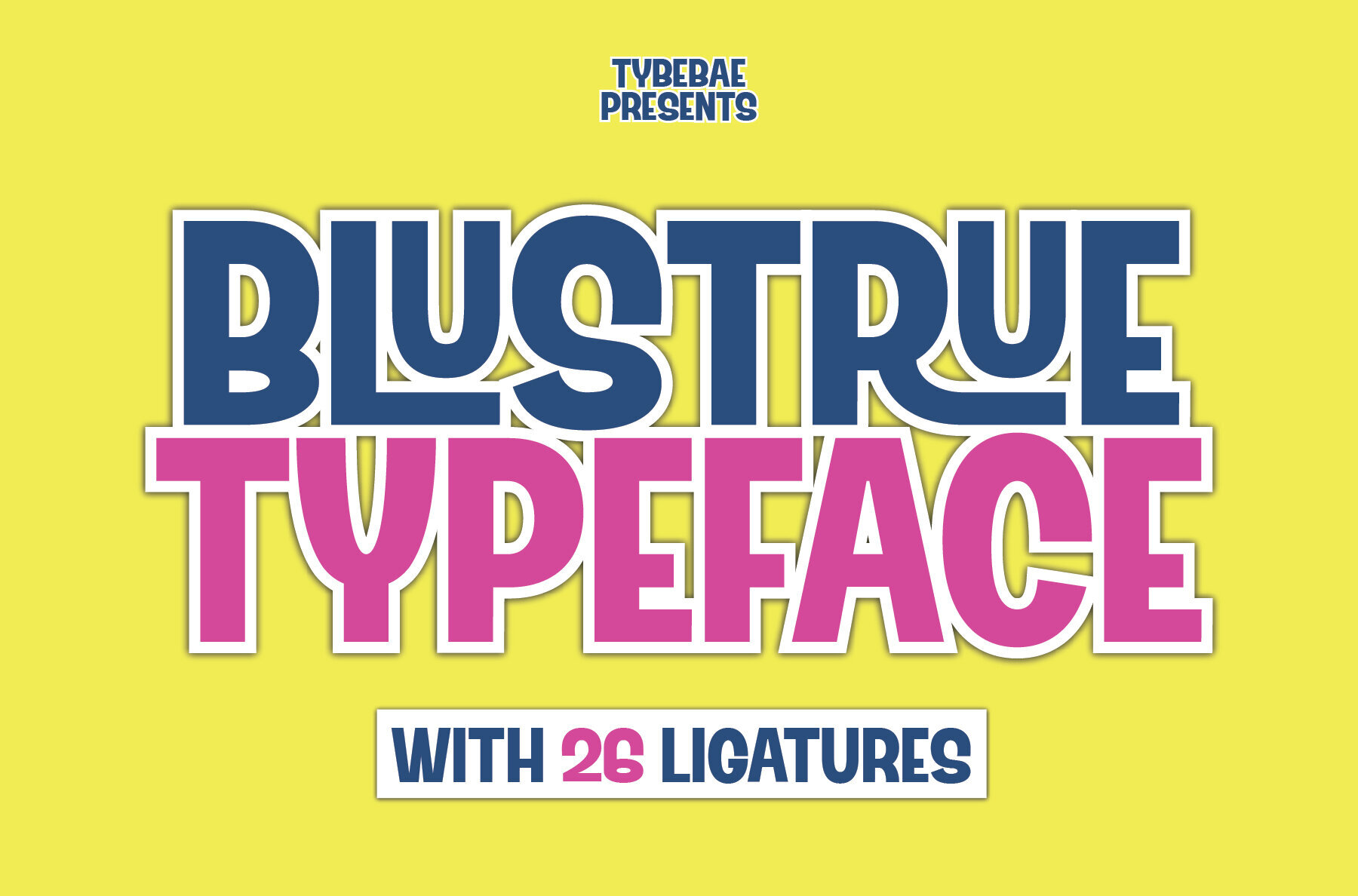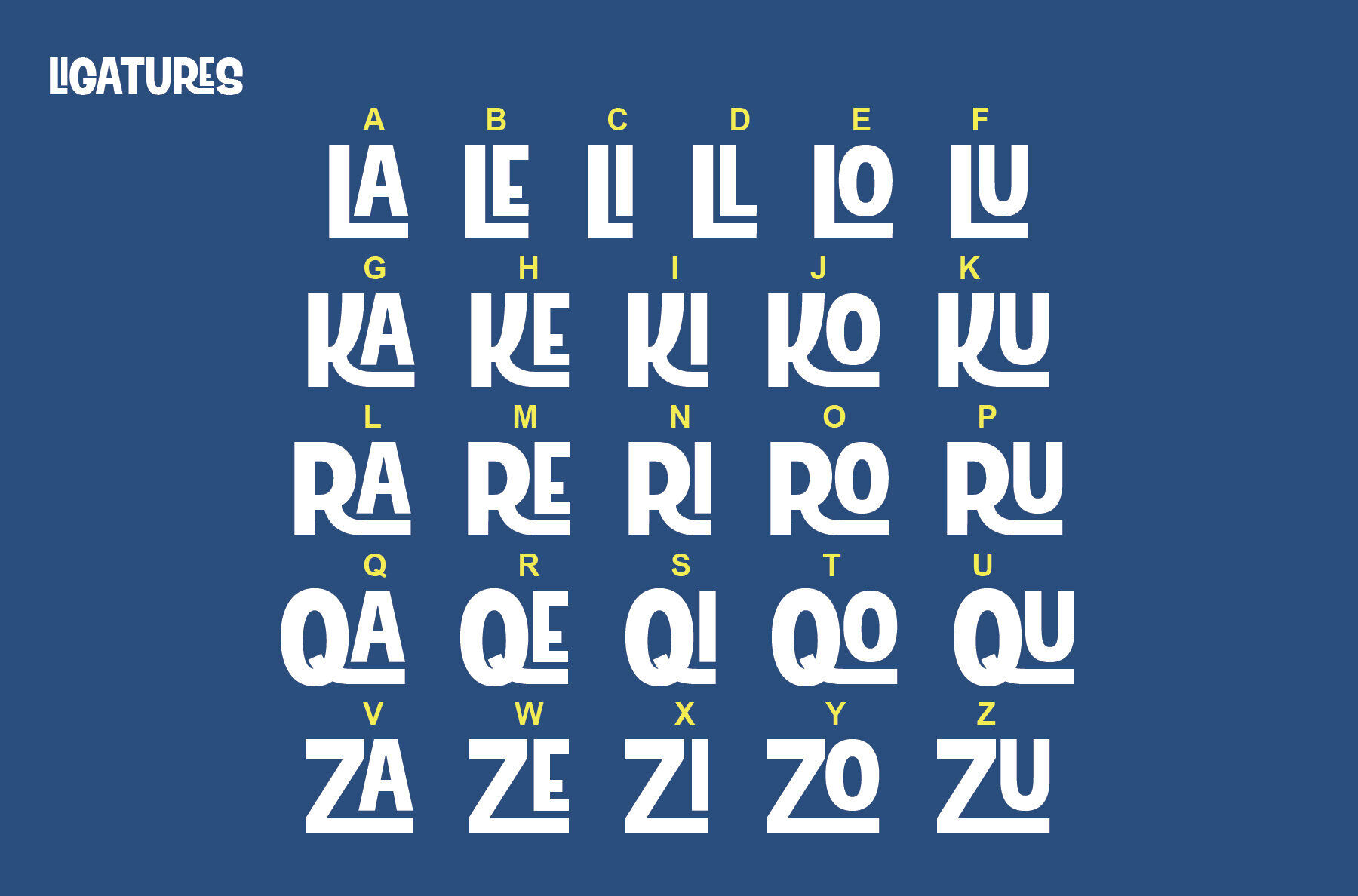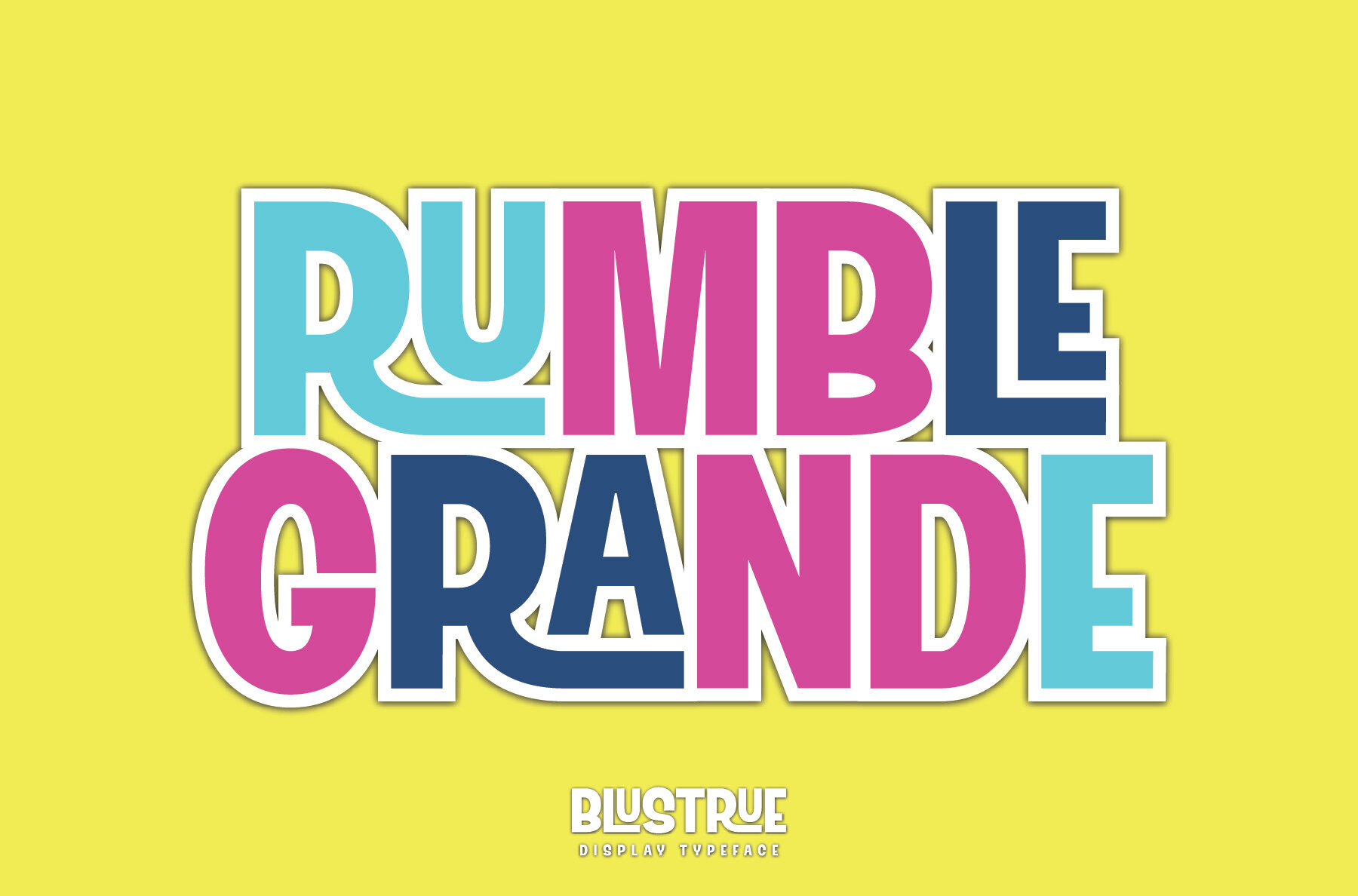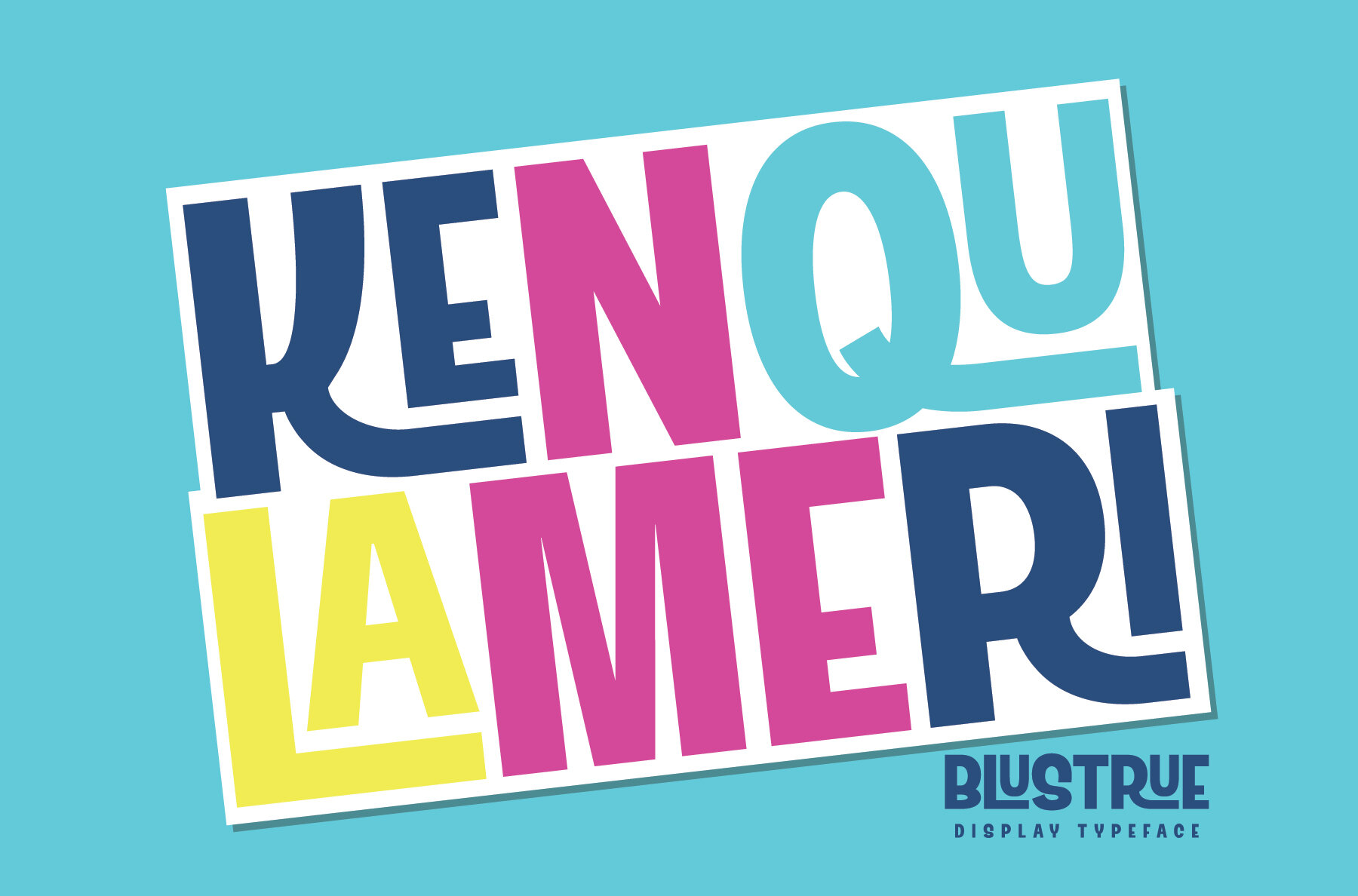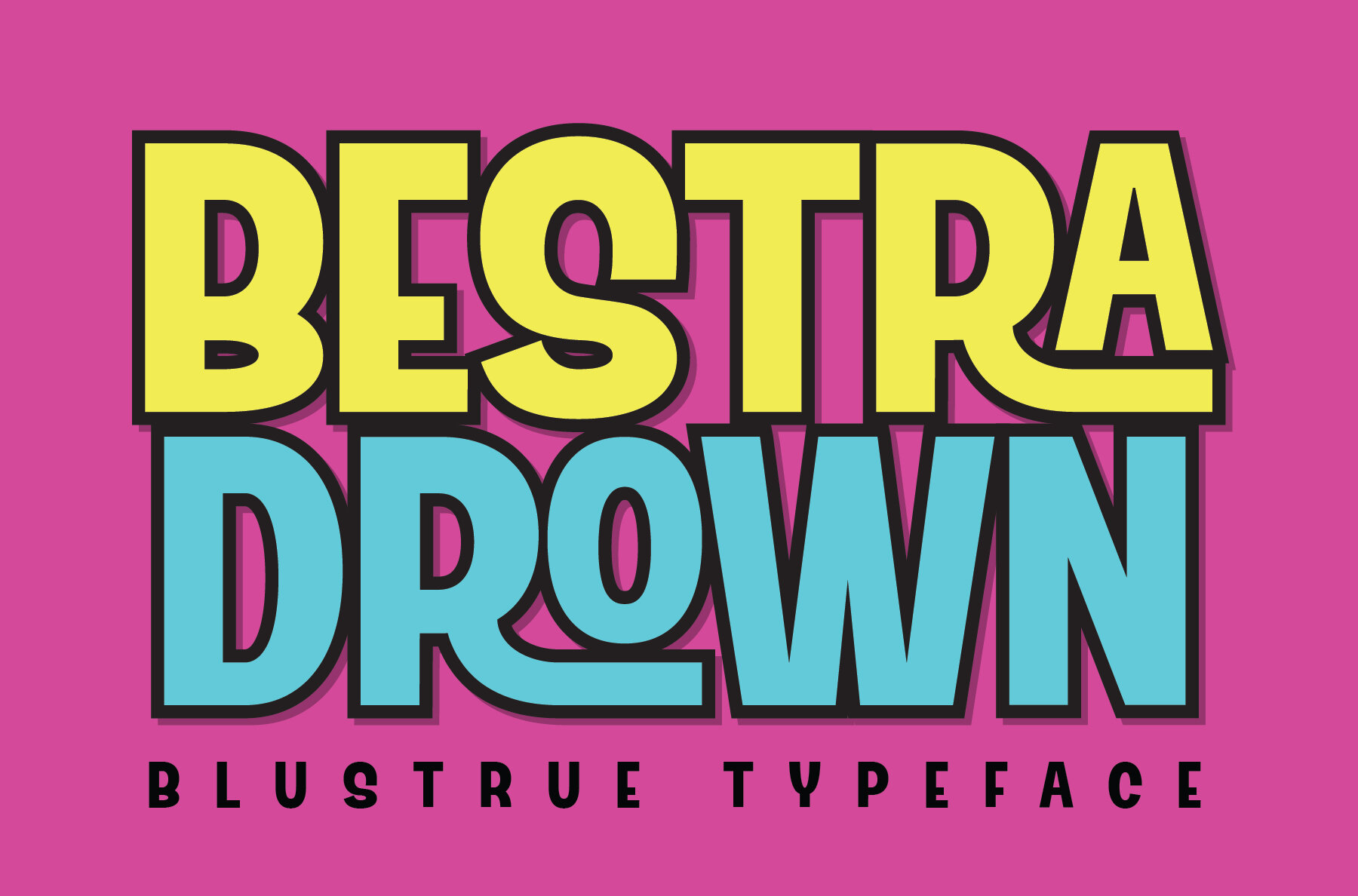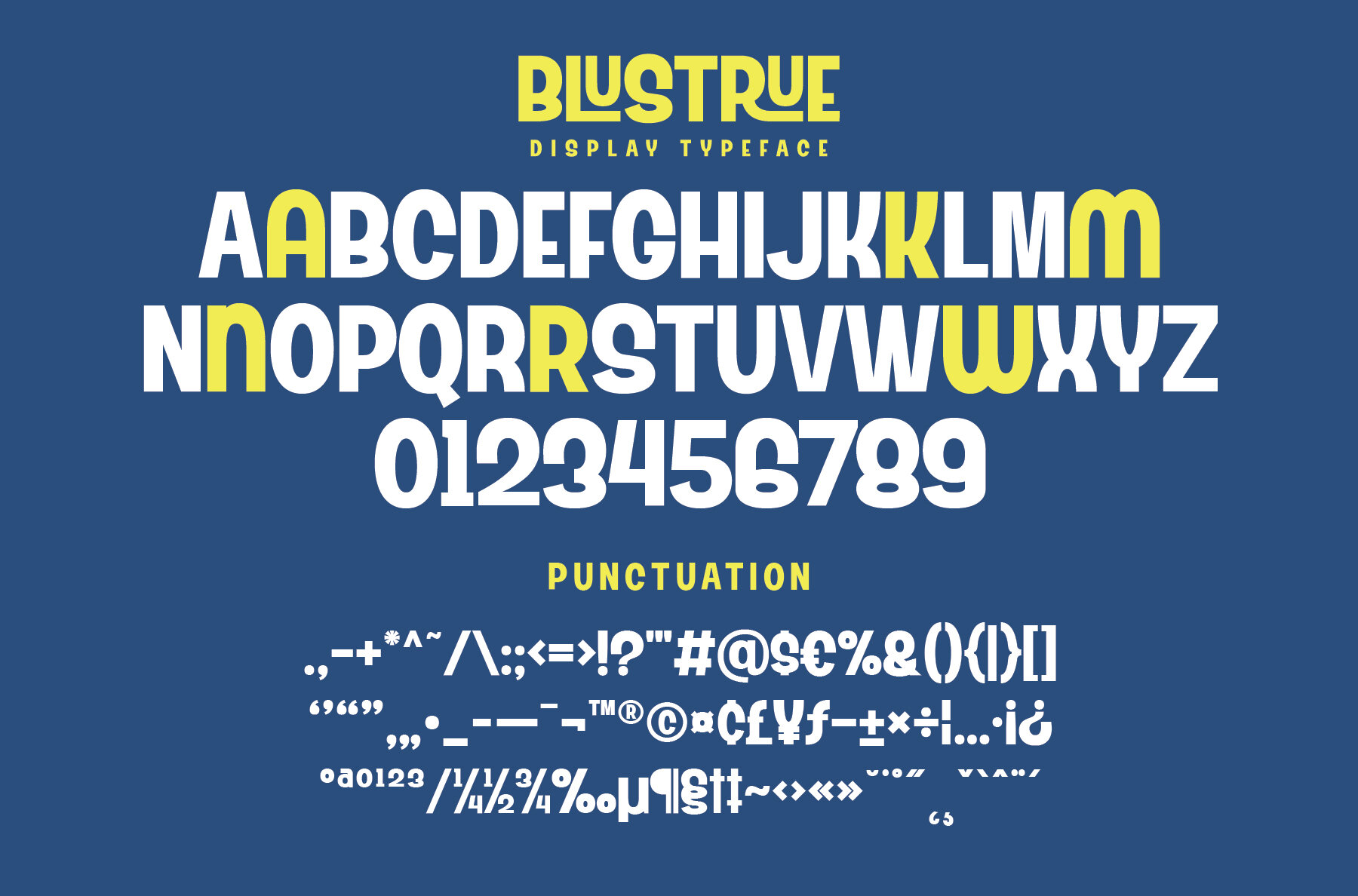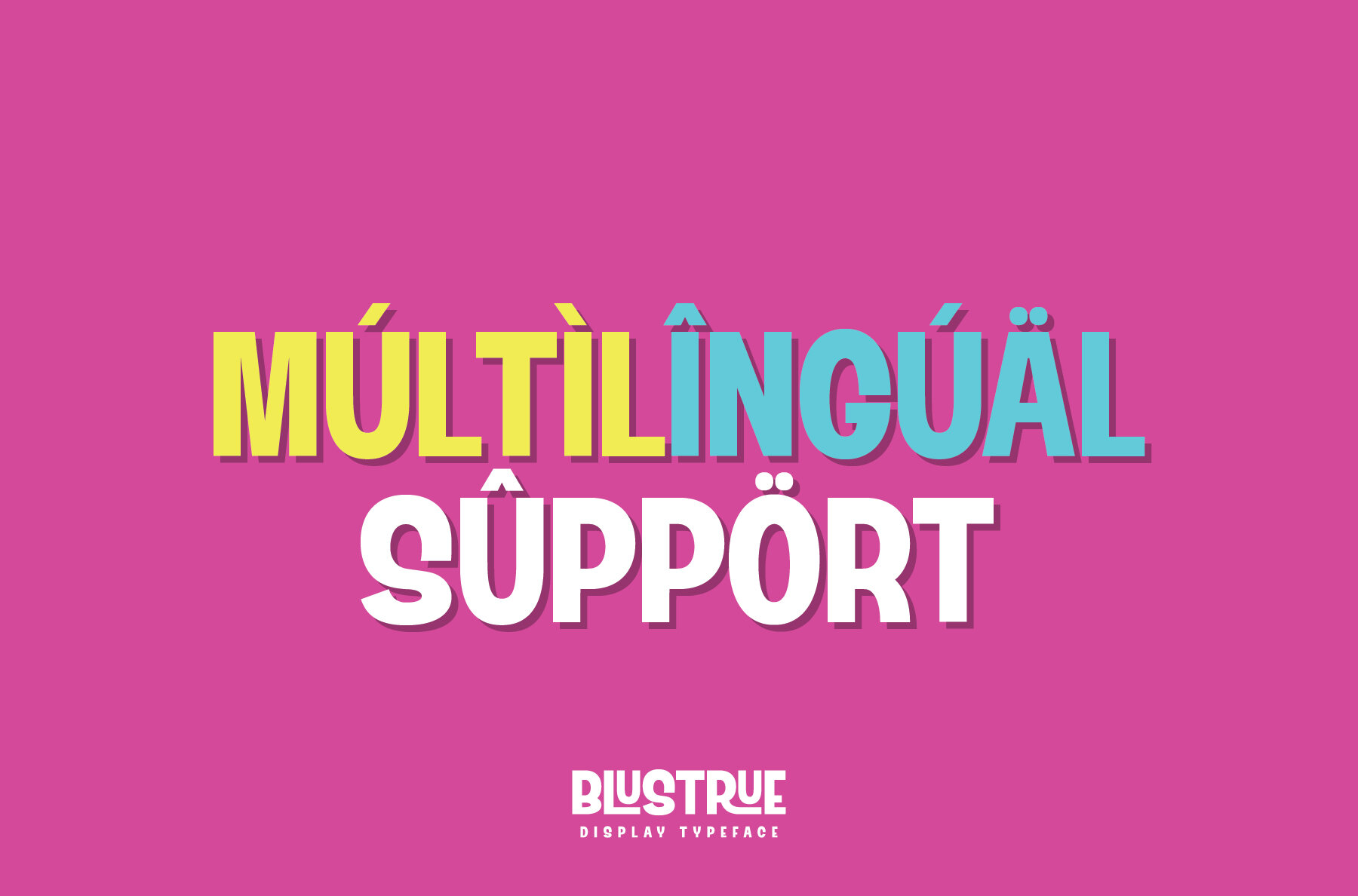
Blustrue Font
Blustrue brings a lively comic flair to your designs, delivering a bold and engaging look that stands out in any creative project. Its playful character is complemented by 26 distinctive ligatures, offering a touch of variety with every word. Ideal for headlines, posters, branding, and digital content, Blustrue injects energy and personality into your text while remaining easy to read. With its vibrant style and versatile features, Blustrue is well suited for designers seeking a distinctive display font to enrich their work.Blustrue: A Bold Comic Display Font